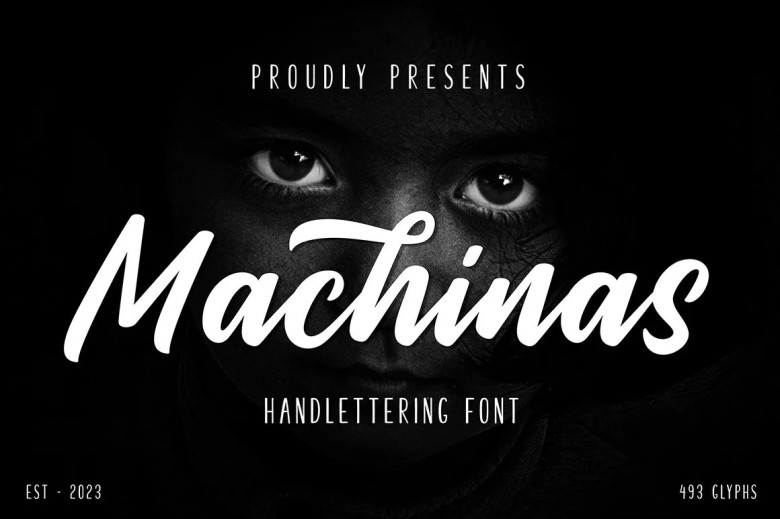
Machinas Font
Machinas is an elegant and soft bold handwritten script font featuring characters twirling across its lines. Developed manually using scratch marks on an original sketch made manually, Machinas can be used for stunning designs such as logos, stickers and T-shirt designs as well as additional illustrations – create your own masterpiece! Also useful for banners posters signs packaging display design as well as display design!
Machinas Handwritten Script Font